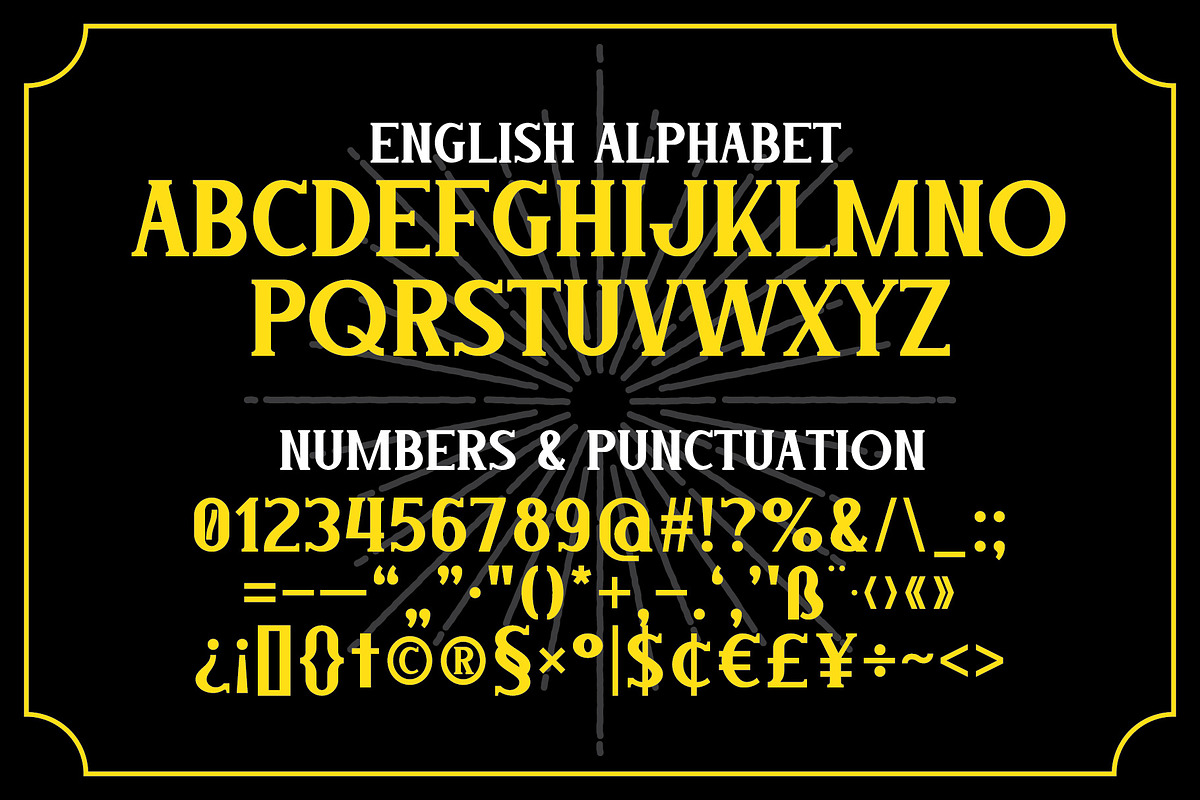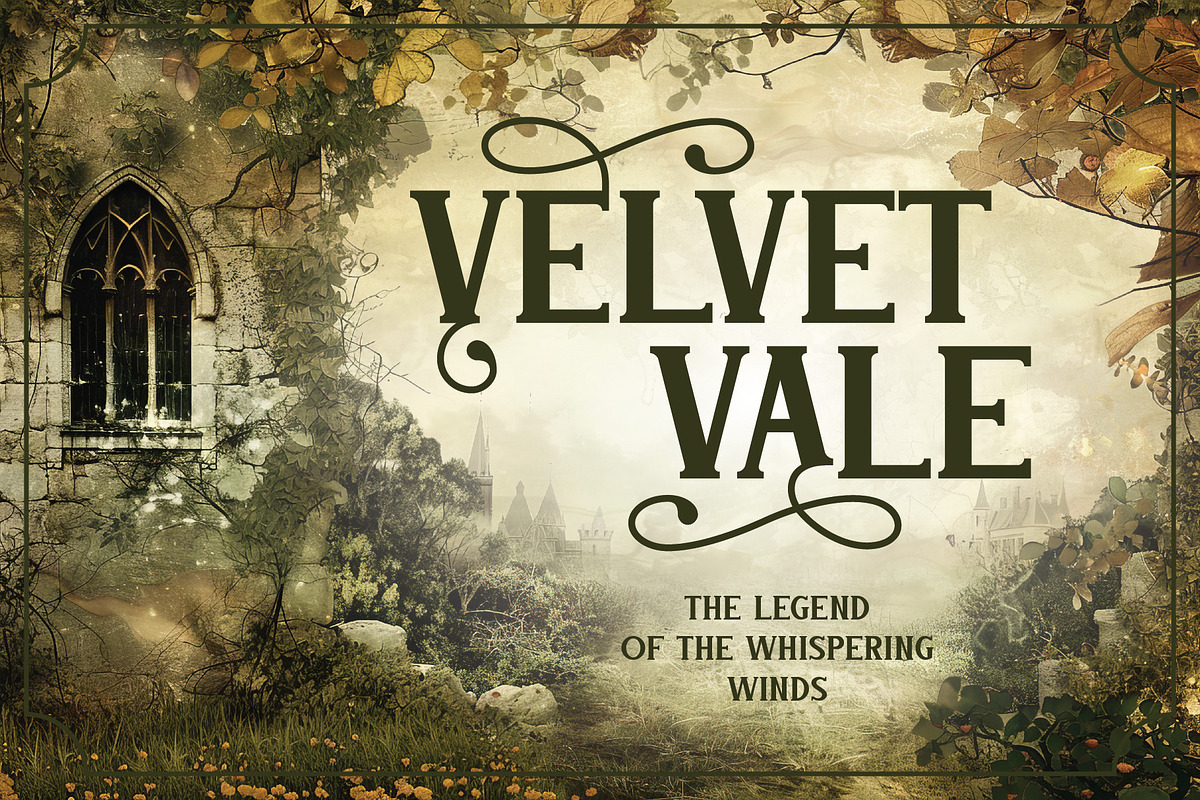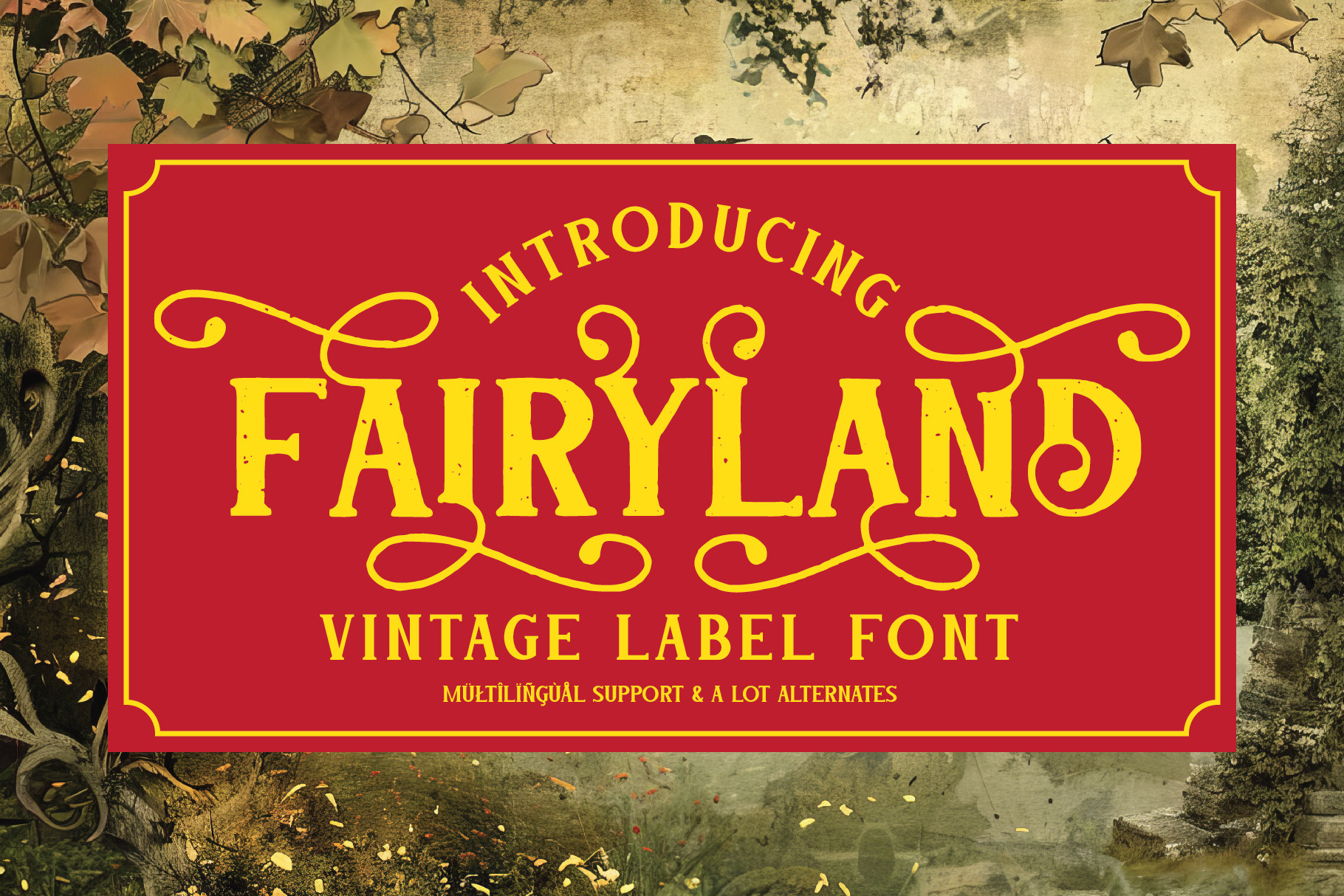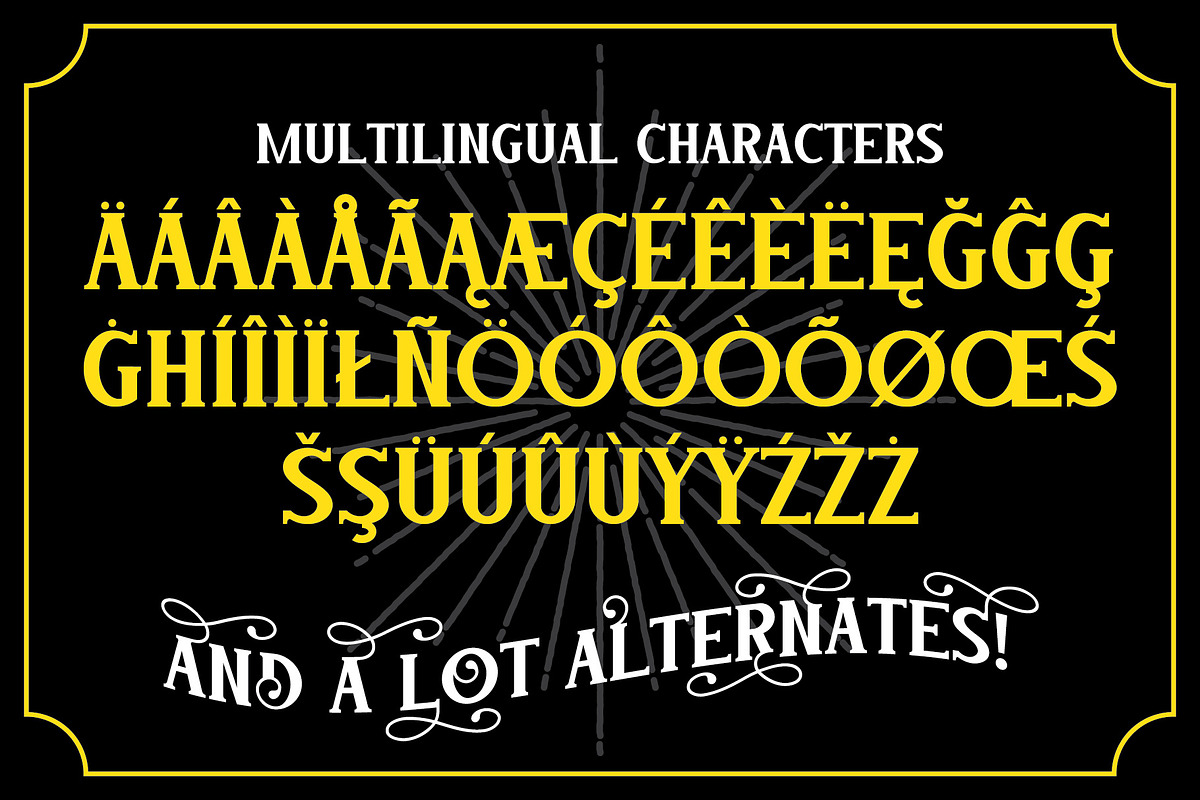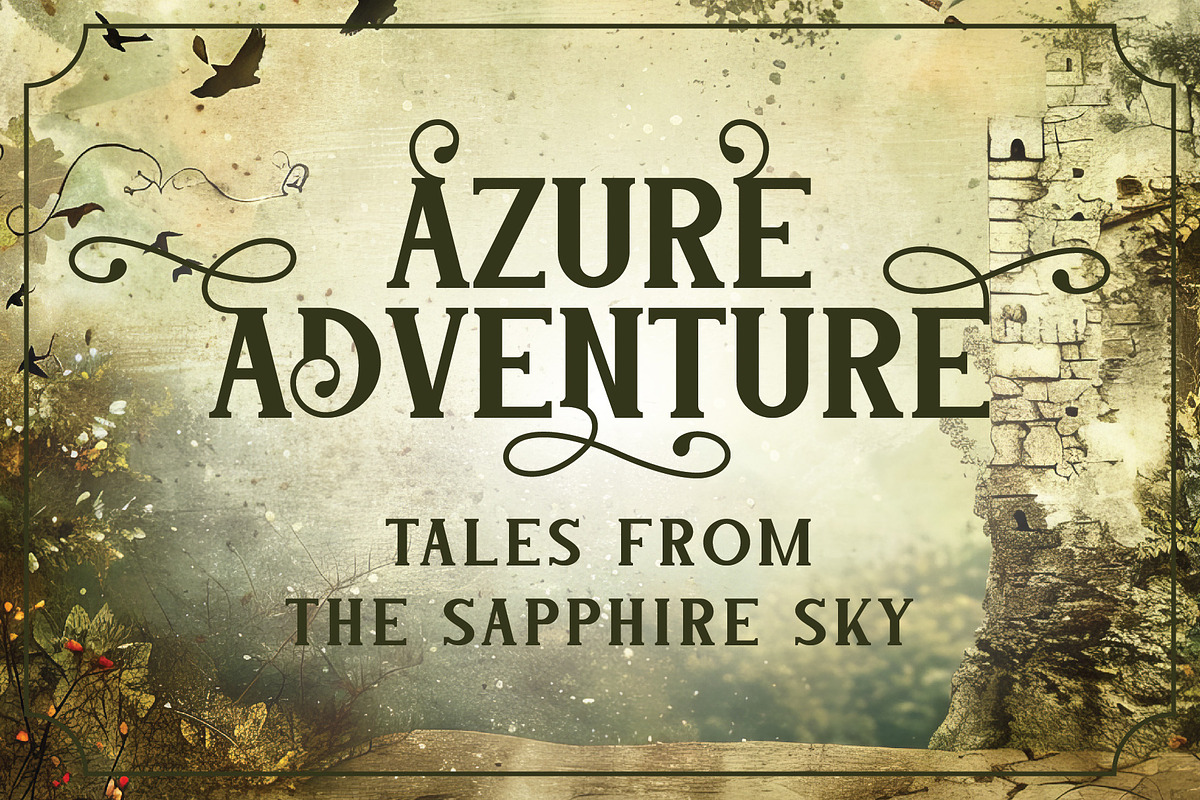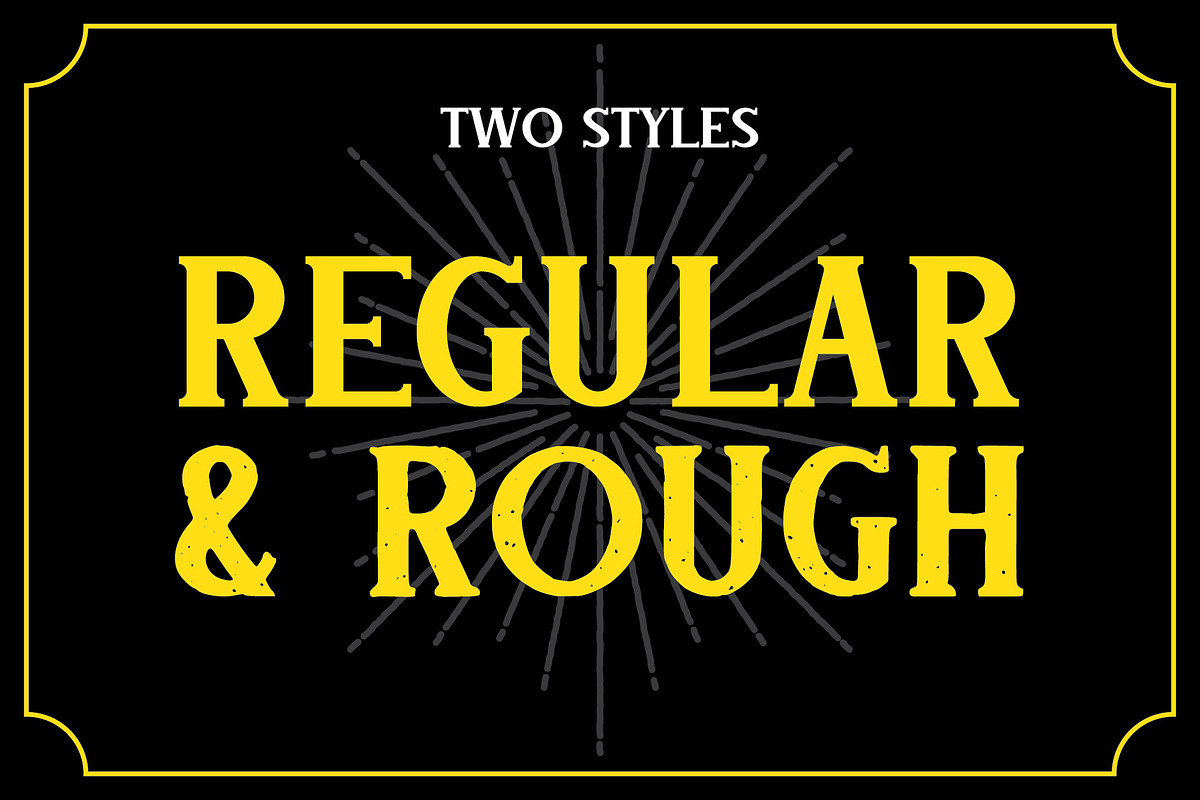
Fairyland Label Font
Introducing vintage label font named Fairyland. This font family has an additional characters and multilingual support (check out all available characters on preview). The font family has two styles: Regular and Rough. This font will look good on any vintage styled designs like a poster, T-shirt, label, logo, etc.
- A lot of additional symbols and multilingual support.
- Lots of alternate characters! To access them, make sure your application supports glyph access. In Adobe Illustrator, all available glyphs can be found in the Glyphs panel. In Photoshop - from the TypePanelsGlyphs panel menu.